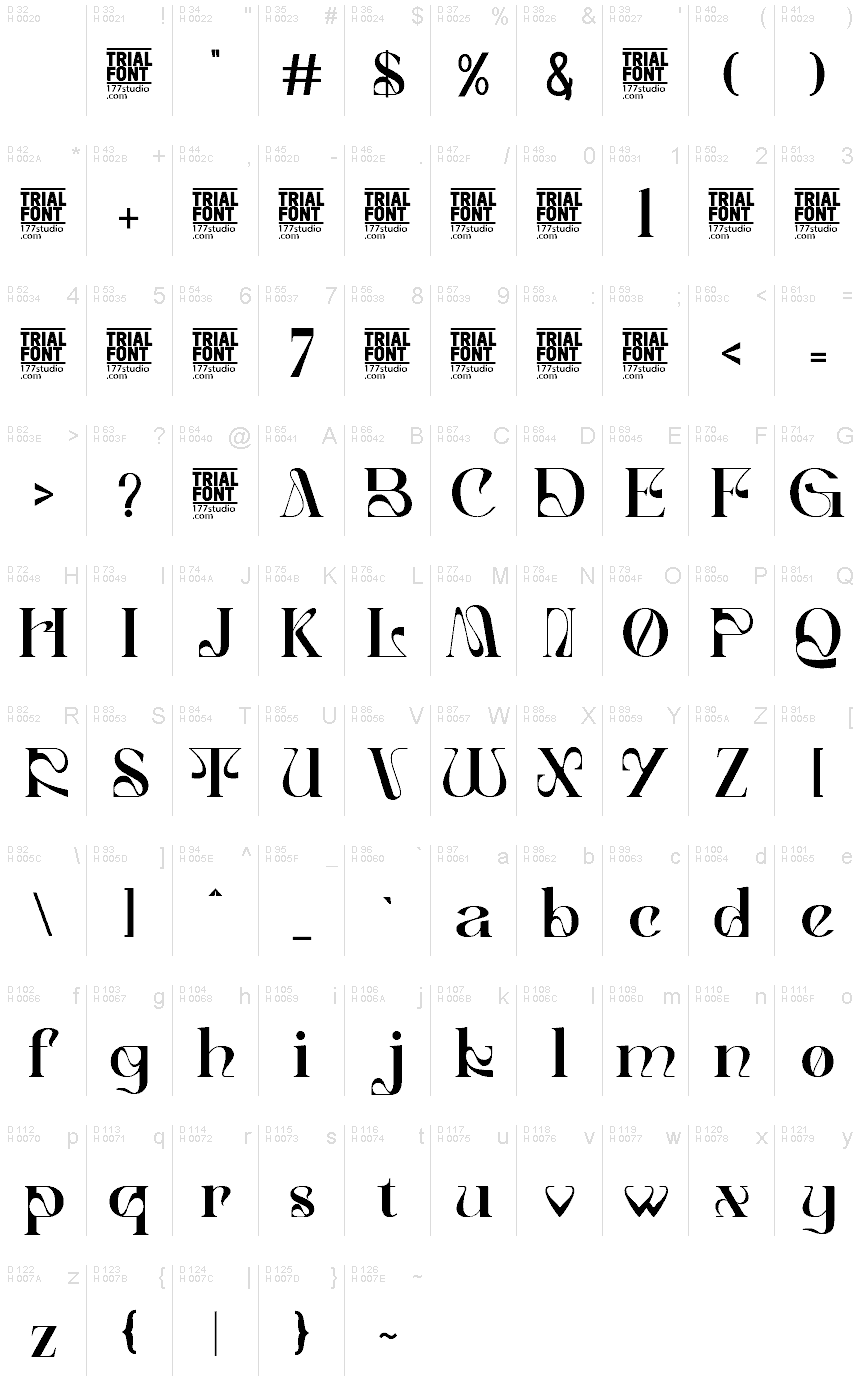
Recognition font designed by 177Studio captures the essence of decorative elements within its characters. The contemporary appeal enhances the retro feel of this display font that was created with professionalism in mind. Readers won’t just glance over any work that uses Recognition and its elegant and sophisticated typography will greatly improve all visual projects.